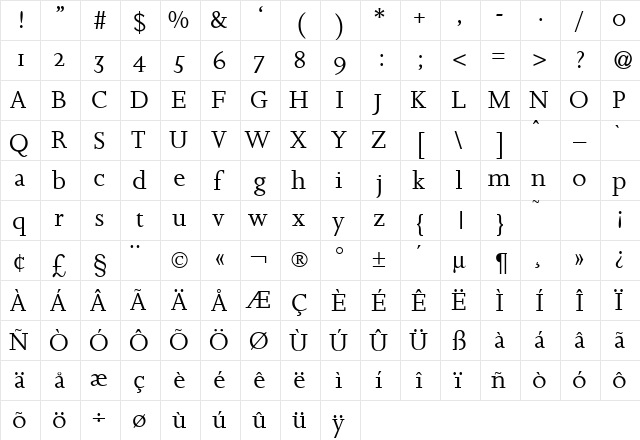
JosephLightDB Normal
Design Context for JosephLightDB Typeface
JosephLightDB is a composed and adaptable typeface that performs quietly and consistently across a wide range of design contexts. The delicate stroke weight brings airiness and refinement to layouts.